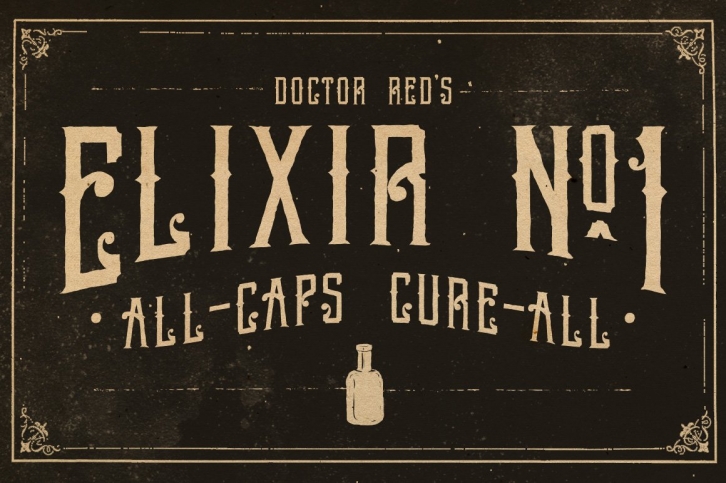
Step right up! Introducing Elixir No1!  This display font is a throwback to the elixirs, snake oils, and tinctures of way back when.  The perfect font to add a sure cure to your next retro or hand crafted project. Priced to sell!  ttf and otf.